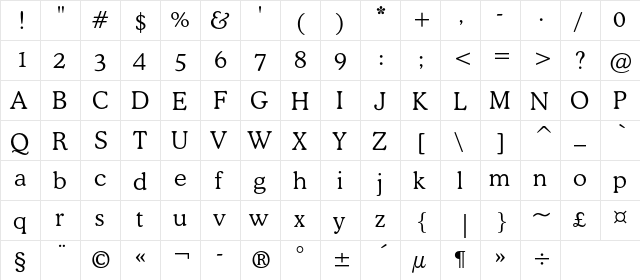
CooperLightC BT Regular
Design Context for CooperLightC BT Typeface
CooperLightC BT takes a measured approach to typography — its balanced proportions and neutral character make it a reliable workhorse for both digital and print work. The delicate stroke weight brings airiness and refinement to layouts.